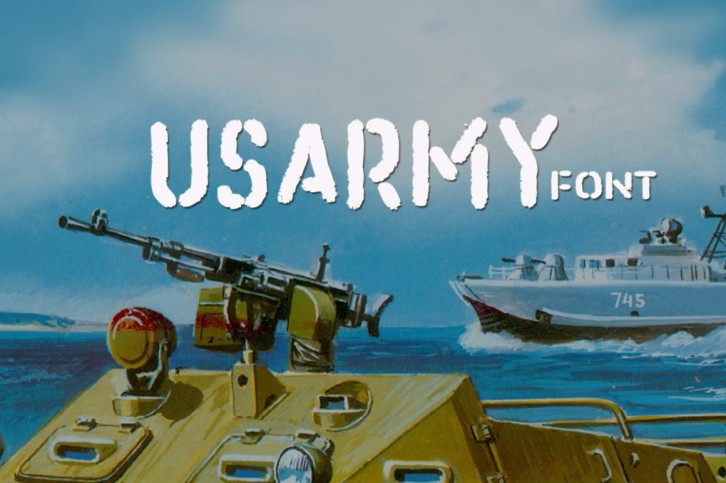
Usarmy is a fun display font perfect for any design you wish to create. Add it to your headings, logos, ads, printed quotes, packaging, websites, social media posts, branding, and many more, and it will make your designs come alive!